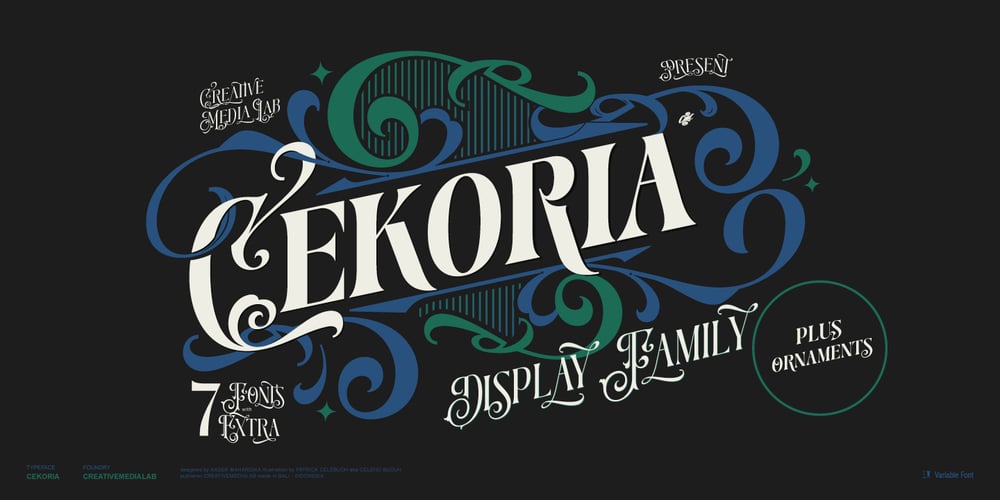
Cekoria Font Family was designed by Kadek Mahardika and published by Creativemedialab. Cekoria contains 8 styles and family package options. Introducing Cekoria, a decorative display font inspired by classic vintage signage art. This all-caps font combines a classic serif with Victorian-style lettering. Cekoria comes in seven different weights, ranging from thin to black, and includes extra ornaments. This font is perfect for creating logotypes, branding, packaging designs, and headlines.–Uppercase